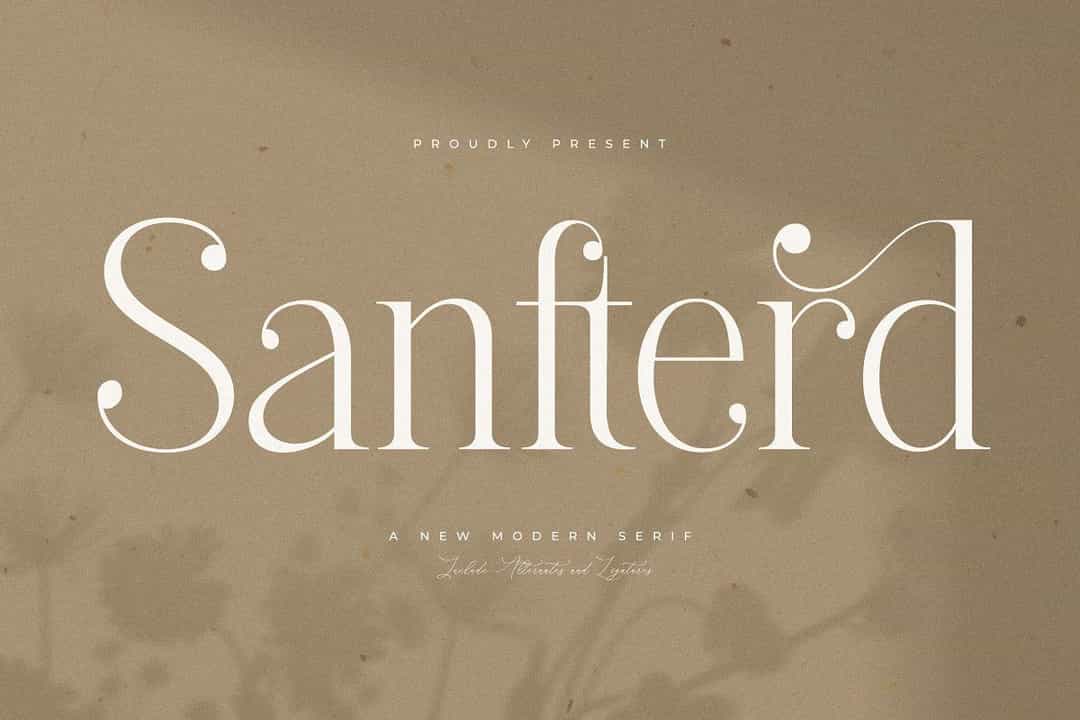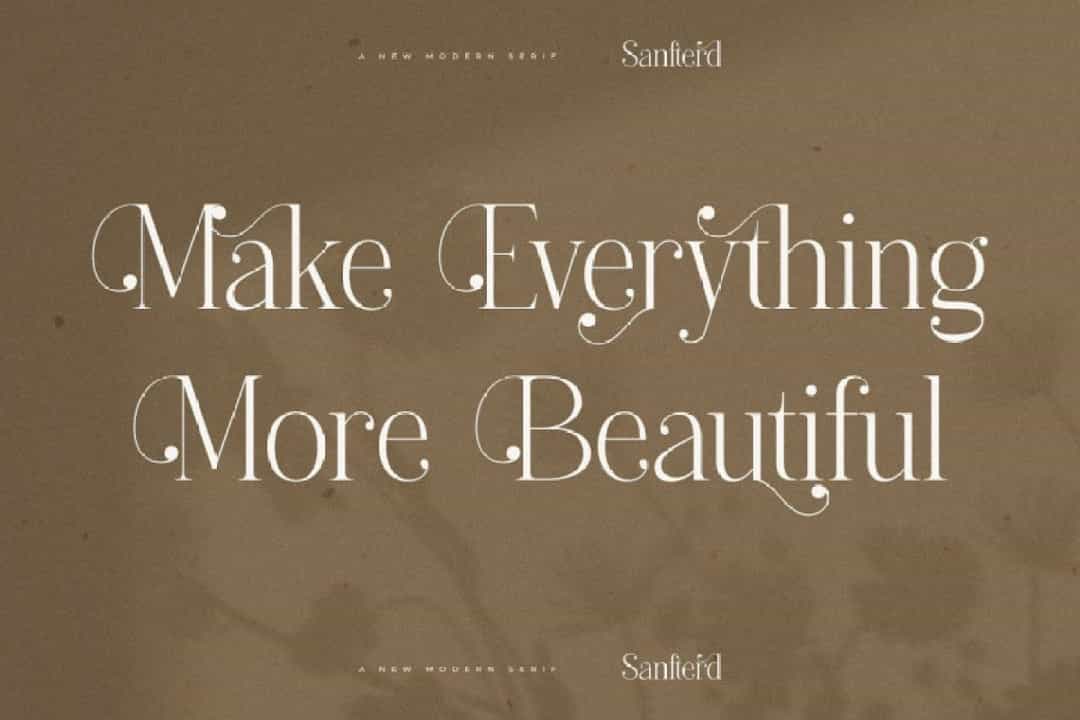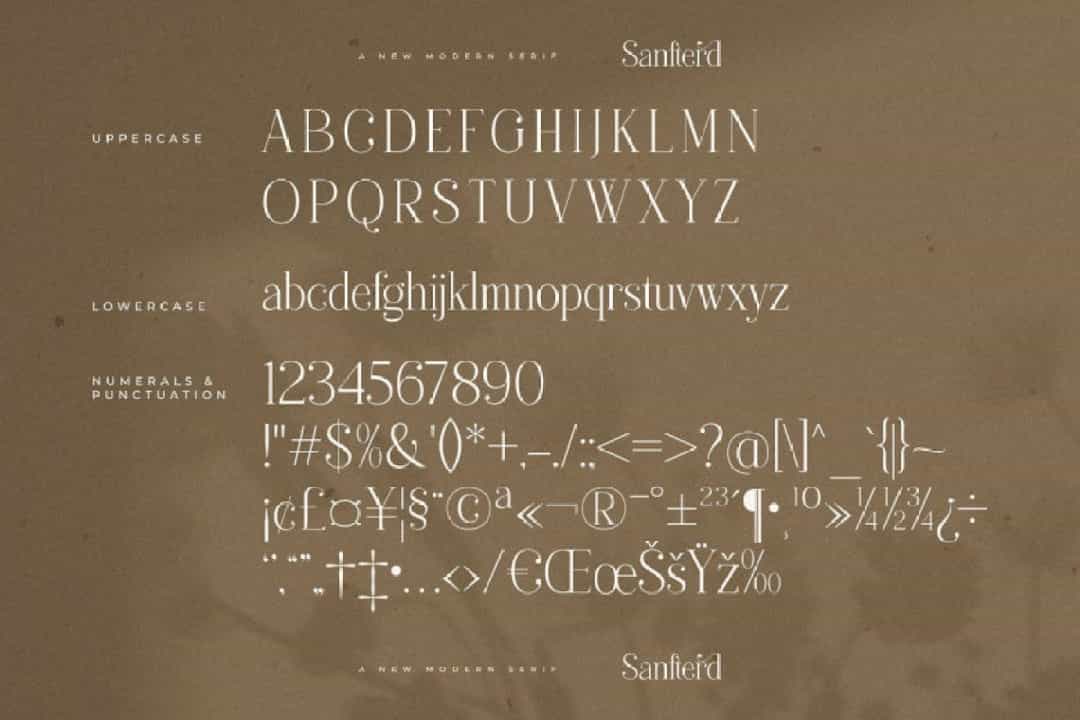
Sanfterd Font, designed by Storytype, is a timeless serif typeface with its own distinct style and contemporary appearance. Perfect for creating classy logos and elegant logo designs for books, movies, clothes brands, magazines, lettering and creating elegant quotes as well as text that reads “sanfterd”, this font makes an impactful statement when applied correctly.